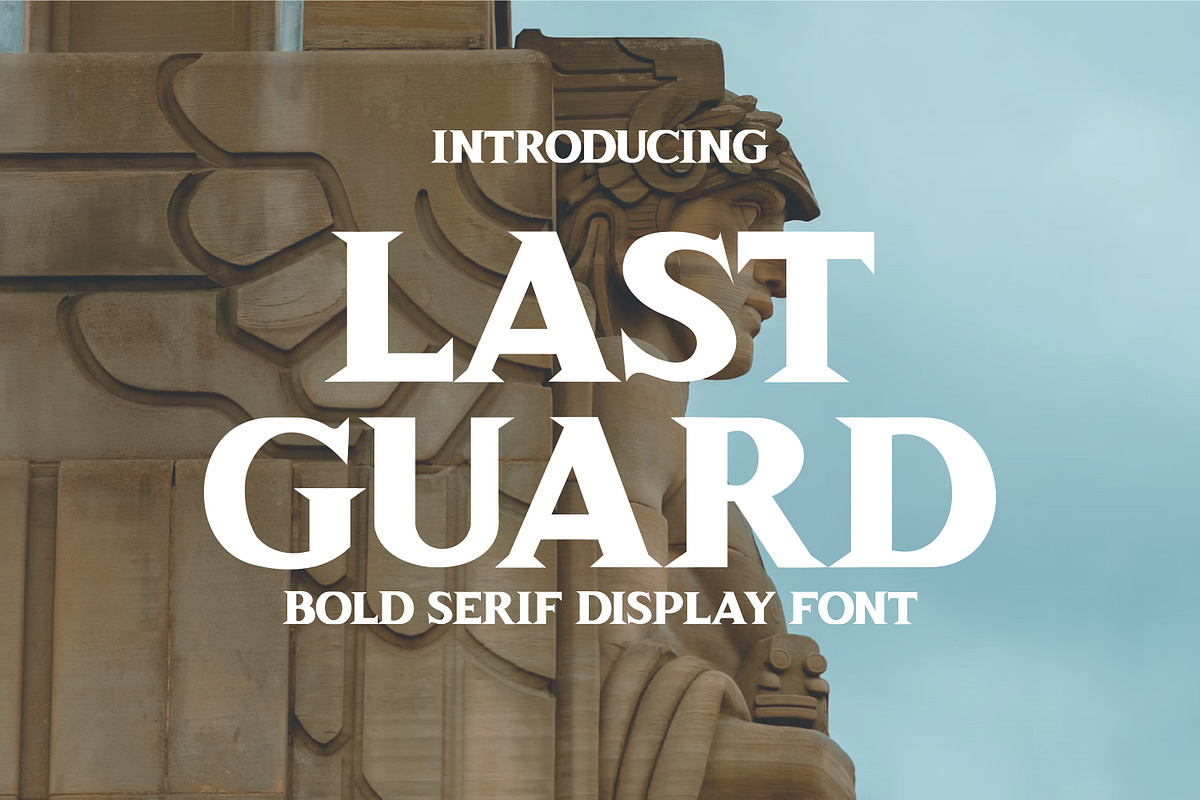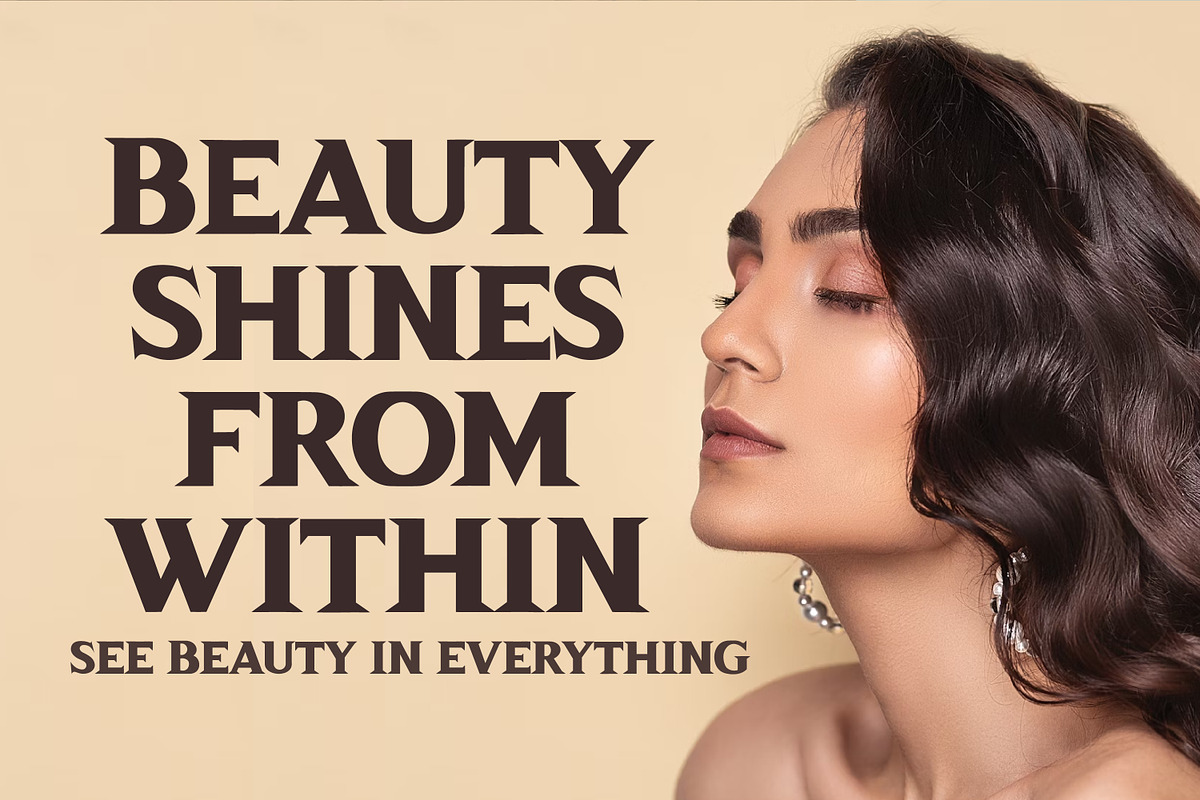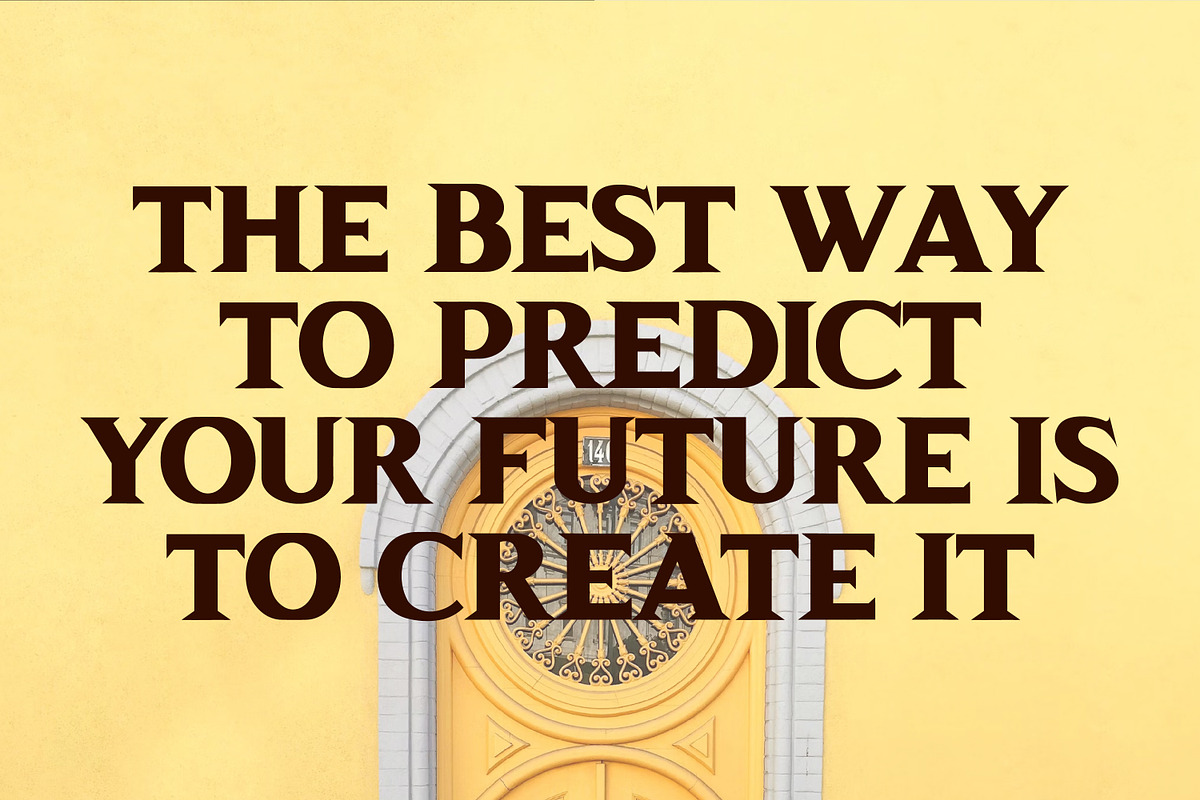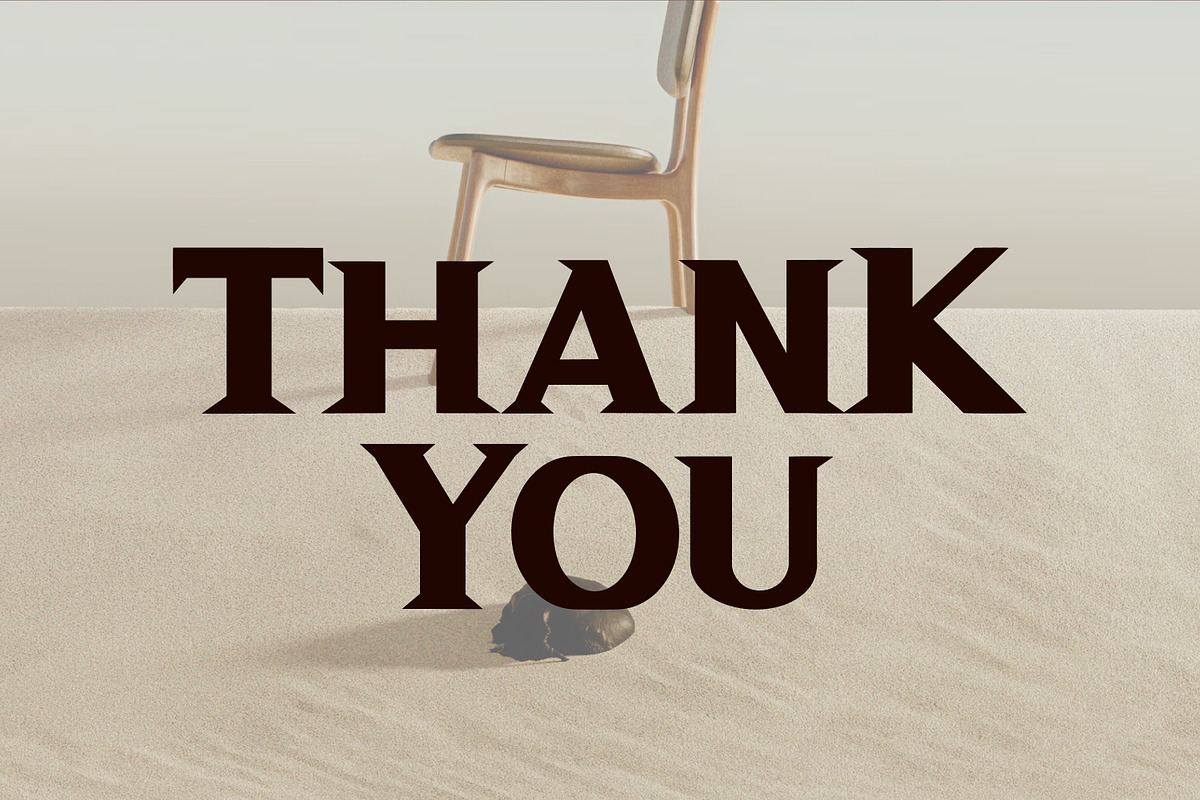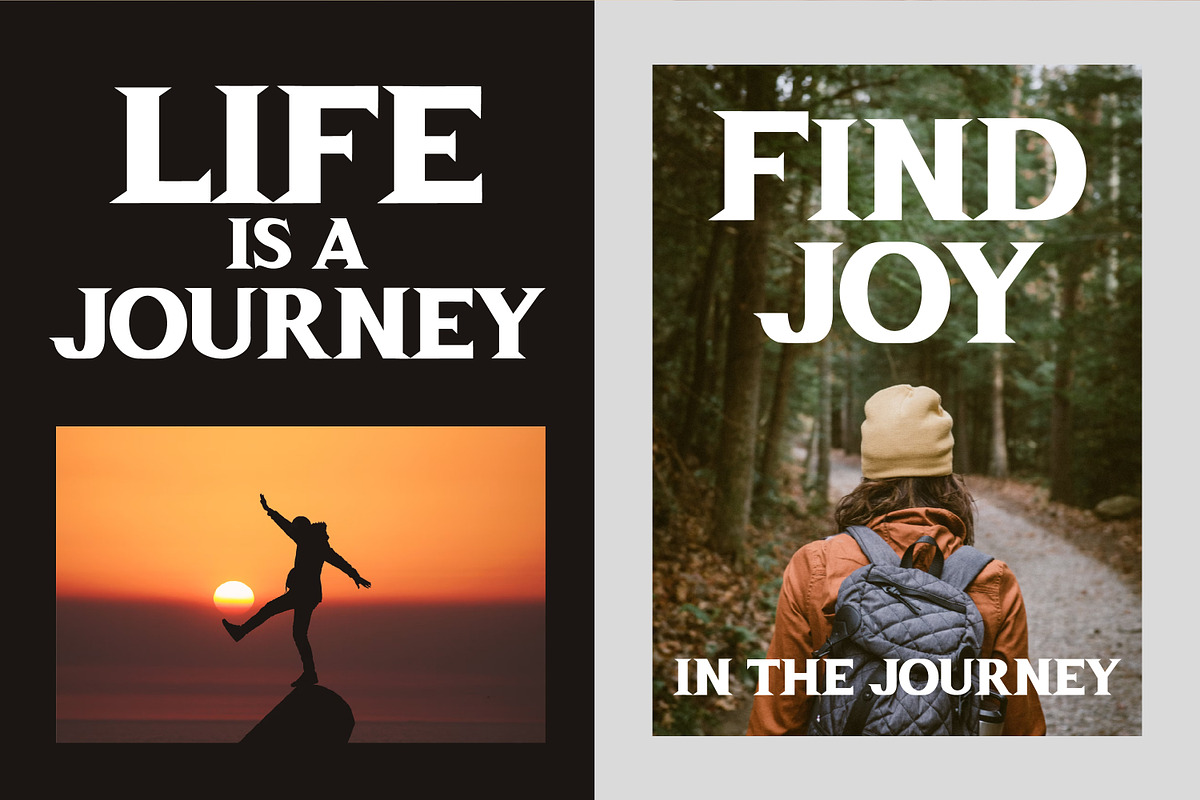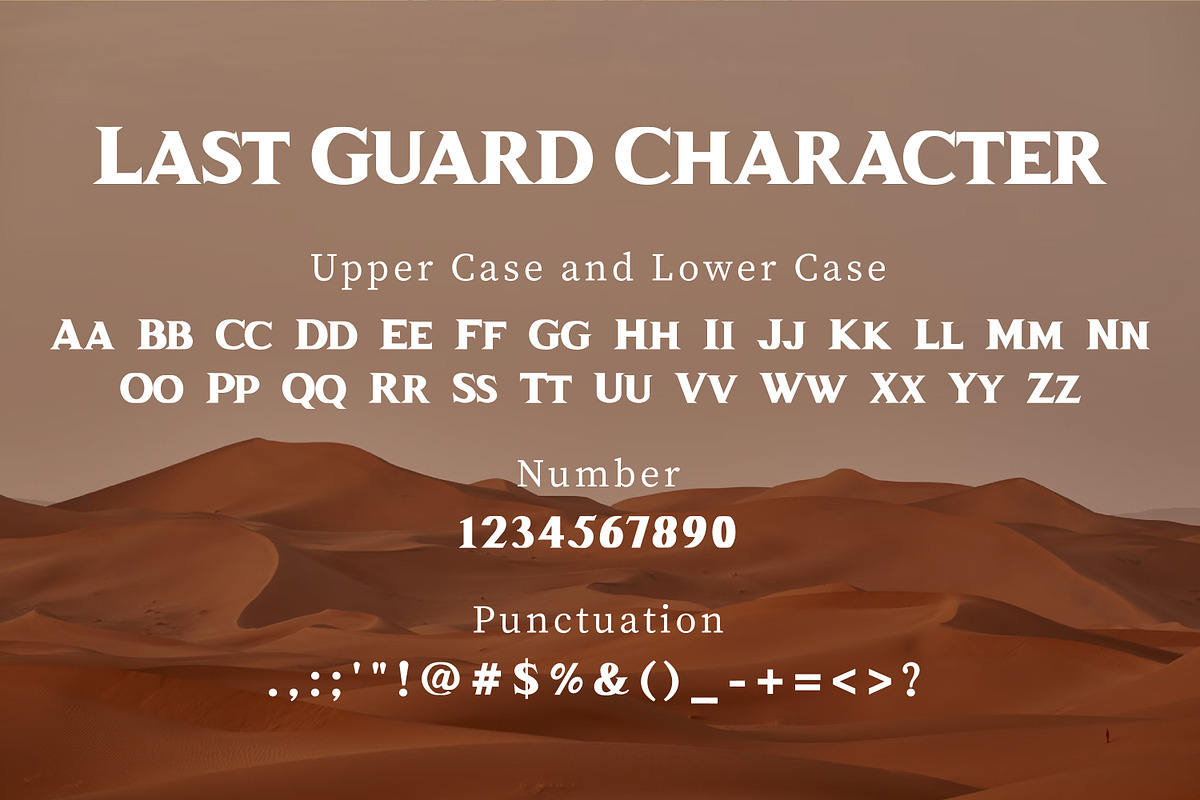
Last Guard Serif Display
Introducing Last Guard: The Epitome of Bold Elegance
Elevate your designs to new heights with Last Guard, a bold serif display font that exudes timeless elegance and commanding presence. Designed for those who refuse to settle for the ordinary, Last Guard is the ultimate choice for projects that demand attention and sophistication.
Last Guard is more than just a font—it's a symbol of resilience and refinement. Each character is meticulously crafted to embody a sense of strength and sophistication, making it the perfect choice for brands and designers who dare to stand out from the crowd.